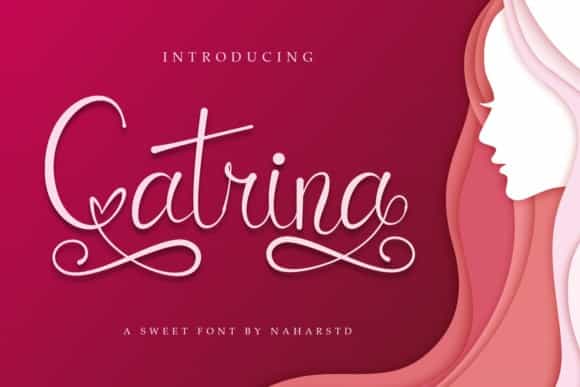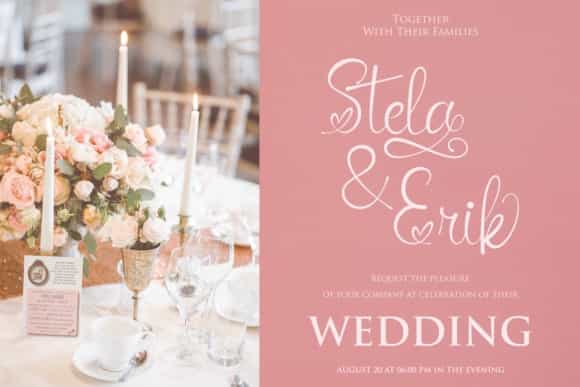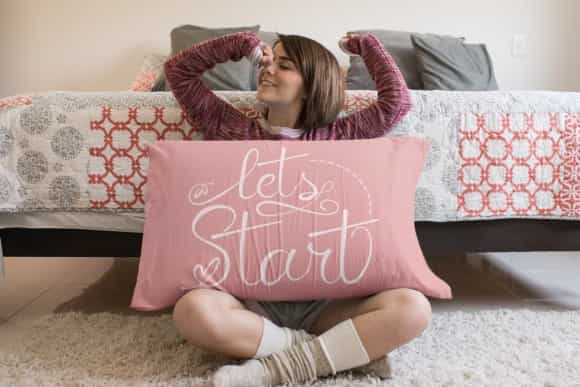
Discover Catrina Font, part of the Calligraphy collection—a versatile and unique font perfect for adding a personal touch to your projects. Download it for free and enjoy crafting designs with style, from invitations to social media posts. This font is available exclusively for personal use, giving you the freedom to create without limits. Unlock your creativity with Catrina Font today!
Catrina Font is a round hand font by Naharstd. The beauty of the bends and optional initial and final curves make this font ideal for invitations or other projects that you would like to have a romantic yet sophisticated feel.